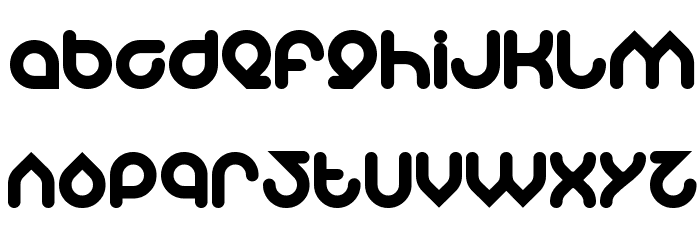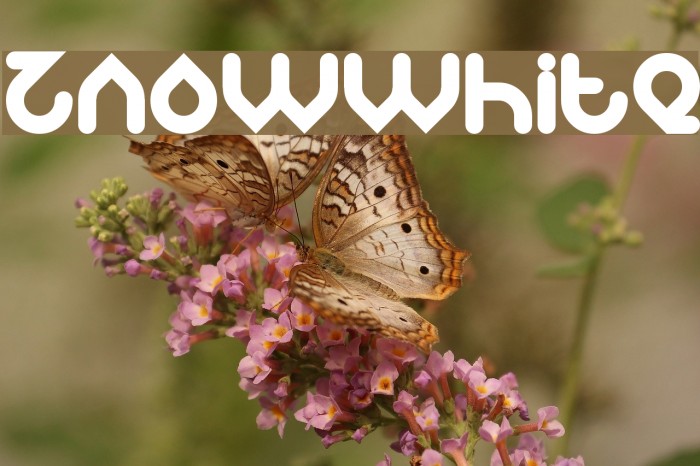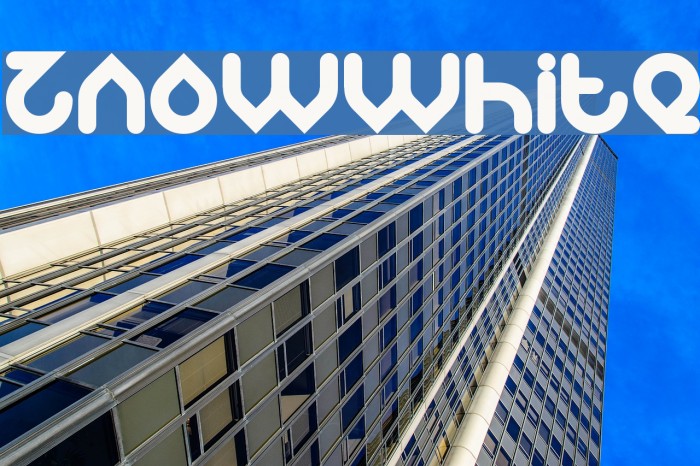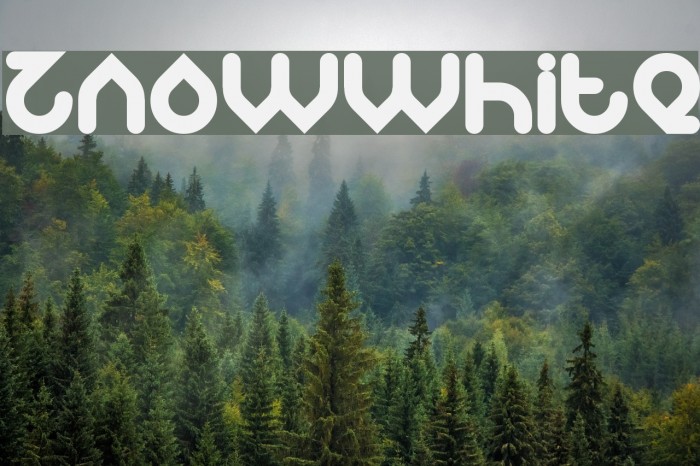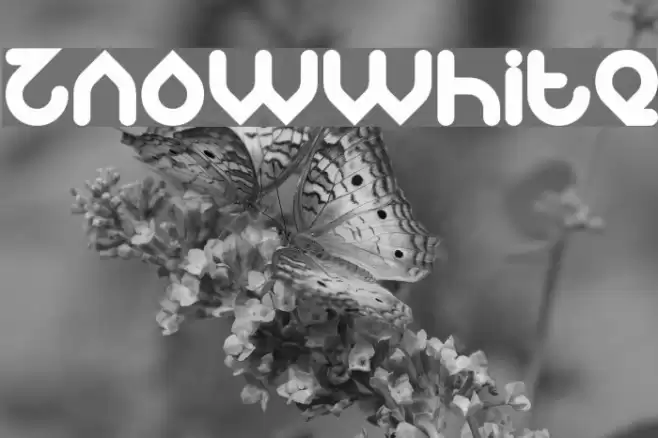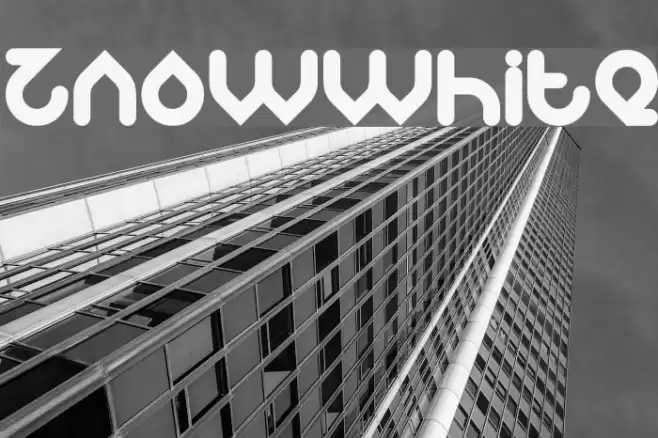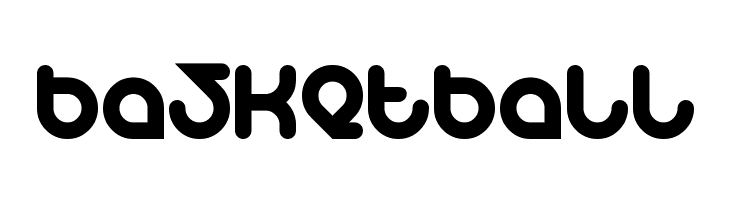
znowwhite Font
This font features a unique, rounded style with a futuristic and playful appearance. Each character is crafted with bold, smooth curves that create a sense of fluidity and movement. The letters are evenly spaced, maintaining a consistent rhythm across the text. The design is modern and eye-catching, making it suitable for creative and innovative projects. Its boldness ensures high readability, while the rounded edges add a friendly and approachable feel. The font's distinctiveness lies in its ability to stand out while remaining legible, making it ideal for headlines and branding.
A bold, rounded font with a futuristic and playful style.
- Proposed Projects: Ideal for branding, headlines, posters, and creative digital designs.